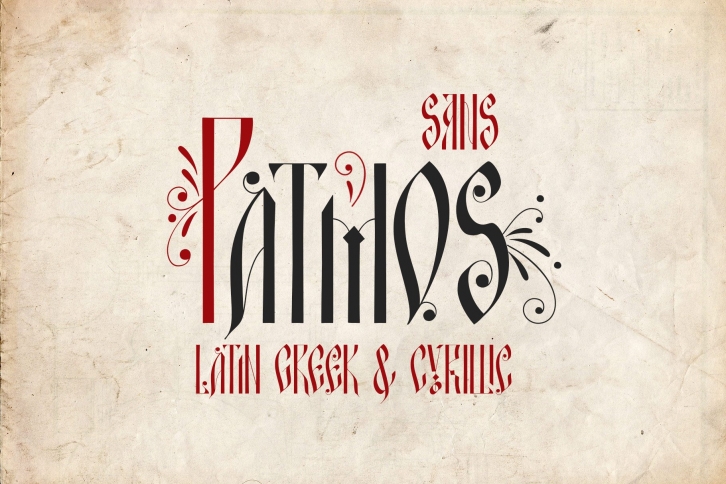
Patmos Sans is a hand drawn sans serif font, inspired by the art of the cyrillic calligraphy, as well as the script of the Greek Orthodox art. The font contains Latin, Greek and Cyrillic alphabets and it is delivered in Opentype and Truetype format. It supports Central, Eastern, Western European, Baltic, Turkish, Greek and Russian languages. Patmos Sans polytonic is an additional font that contains only Greek polytonic alphabet.
Patmos Sans has a variety of stylistic alternates and classes, titling altrenates, discretionary and standard ligatures. The font is fully unicode-mapped (PUA encoded). This means that you can still access the Open type features even if you don't use a software that supports Open type fonts. However it is highly recommended that you use an opentype support software. Best Opentype support software: Adobe InDesign, Illustrator & Photoshop CC2015+, Corel Draw, Affinity Designer & Photo, Sketch 3, Quark XPress 7+
Decorative ornaments: The standard ligatures are 4 decorative ornaments, that you may add at the end of a word and they fit perfectly with the titling alternates. All you have to do is to make sure that 'standard ligatures' are activated in your application and then type d and a number from 1 to 4